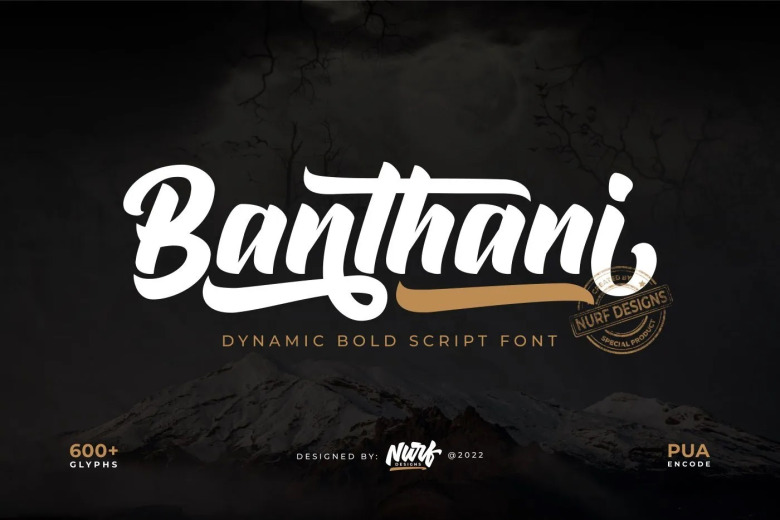
Banthanii it’s a dynamic bold script font. This font inspired by the predecessor series is Raphtalia, although it comes with a bold script style and its complete features are equipped with Opentype Features (Stylistic Alternate, Contextual Alternate, Ligature), In almost every glyphs you get a different character which can be fit according to design.
A few characters were designed to alter “DYNAMICALLY” in appearance when they combine with some other character which helped create readability and harmony in each glyph. Banthani is very suitable for the Logo-type, Branding, Header and Body design. Just exactly what you need to add something more distinctive in your designs!
Banthani Bold Script Font